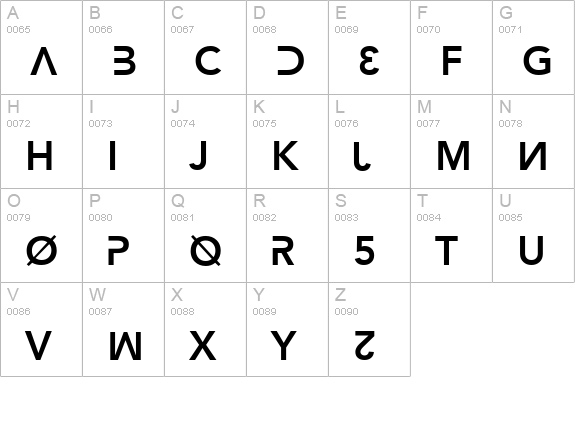
Hacker Argot Font Details
Hacker Argot font is a stylish and futuristic typeface that perfectly captures the essence of the digital world. With its sleek and sharp design, this font embodies the spirit of hacking and cyberpunk culture. Featuring intricate and edgy letterforms, Hacker Argot font is the perfect choice for anyone looking to add a touch of modernity and sophistication to their projects. Whether you're designing a cutting-edge website, creating a poster for a tech conference, or crafting a logo for a cybersecurity company, this font will make your text stand out and grab attention. What sets Hacker Argot font apart is not just its stunning aesthetics, but also its versatility. It can easily adapt to different design styles, seamlessly blending in with both bold and minimalistic layouts. Its clean lines and distinctive characters make it legible even at small sizes, ensuring that your message is always clear and easily readable. And the best part? Hacker Argot font is available for free! You can download it right now at FontsMarket.com, a trusted source for high-quality fonts. So whether you're a professional designer or just someone looking to add a touch of hacker chic to your personal projects, this font is accessible to all. Don't miss out on this opportunity to elevate your designs with the unique and captivating Hacker Argot font. Download it for free today at FontsMarket.com and unlock a world of creativity and innovation.